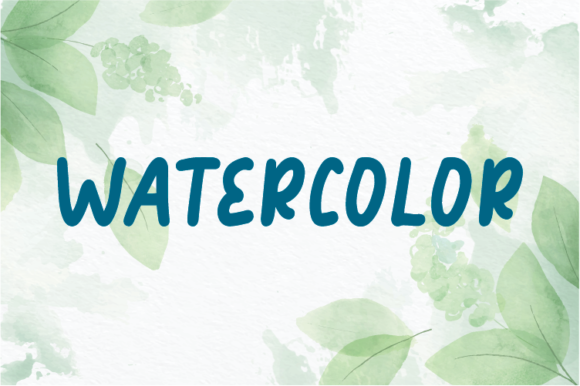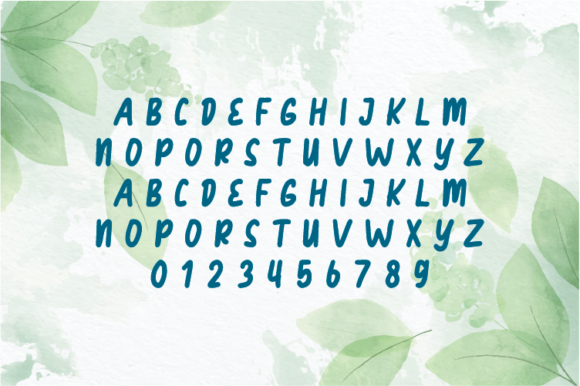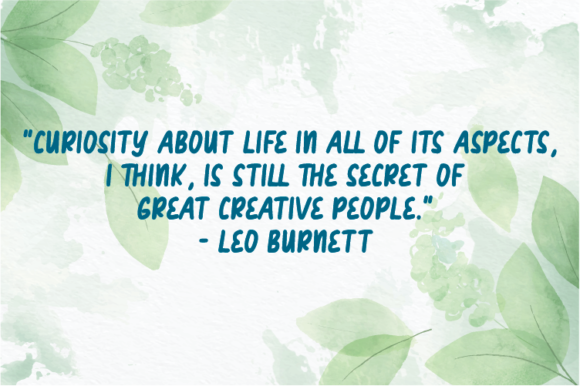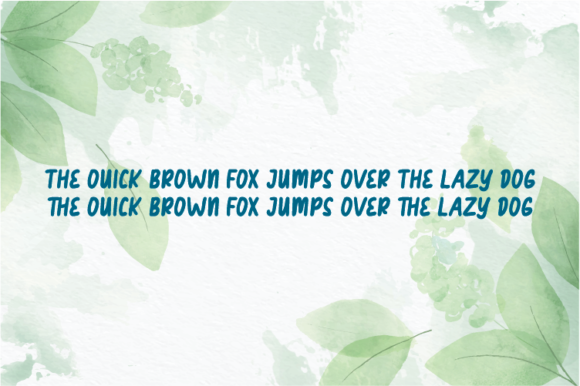
About Watercolor Font
Watercolor is a captivating and artistic handwritten font that brings a touch of creative flair to a wide array of design projects. Its unique and hand-painted appearance adds an element of artistic expression to your work, making it a versatile choice for a variety of applications.
For blog posts, Watercolor injects a sense of creativity and visual interest into your written content. The font’s textured and organic look can enhance the overall aesthetic of your blog, making it more visually engaging for your readers.
In logos and branding, Watercolor adds a distinctive and artistic touch that sets your brand apart. Whether you’re working on a boutique business or an artsy venture, the font’s hand-painted style can create a memorable and impactful brand identity.
Advertisements that feature the Watercolor font exude a unique and eye-catching appeal. Whether it’s for print or digital ads, the font’s artistic and colorful strokes can draw attention and create a sense of curiosity among your target audience.
Invitations and greeting cards designed with Watercolor convey a sense of personalized charm and creativity. The font’s artistic texture enhances the visual appeal of your invitations and makes your greeting cards stand out as thoughtful and special.
Planners and photo albums benefit from the creative touch of Watercolor, adding an artistic and expressive element to your organization and memory-keeping. The font’s hand-painted appearance complements the artistic nature of these projects.
Decorations and design elements come to life with the addition of Watercolor. Its textured and vibrant look can be used to create visually captivating graphics and decorative elements for a variety of contexts.
In summary, Watercolor is an artistic and expressive handwritten font that can be used in a wide range of design projects. Its hand-painted appearance adds a creative and unique touch to blog posts, logos, branding, ads, invitations, greeting cards, planners, photo albums, decorations, and more. Incorporate Watercolor into your designs and watch as your projects come alive with a burst of artistic charm and visual appeal.